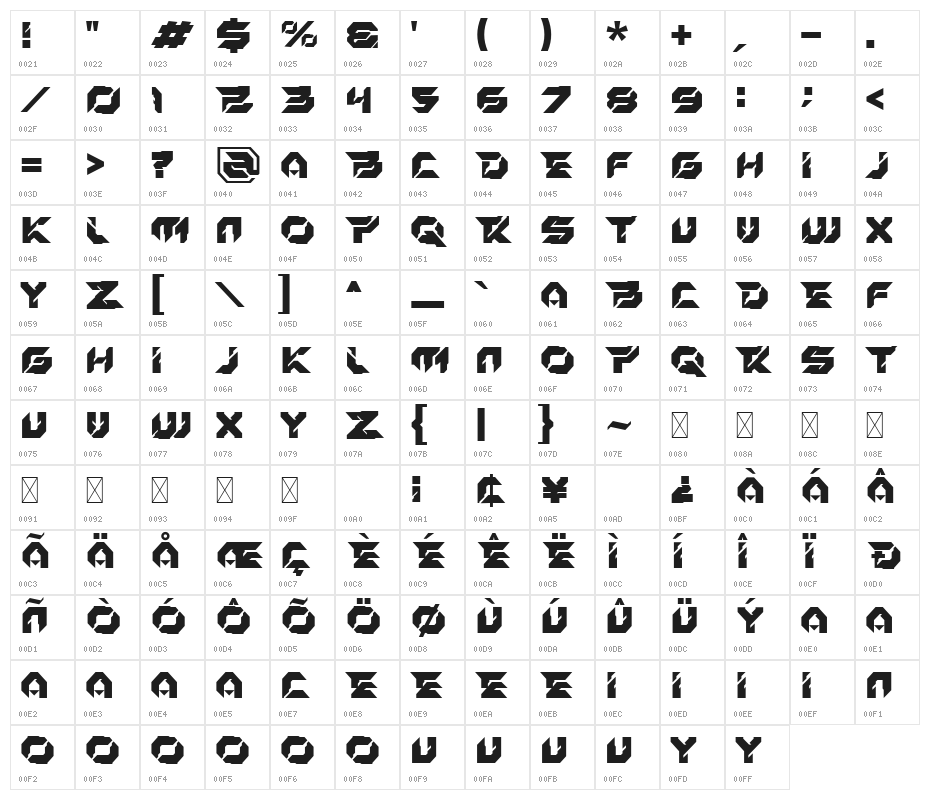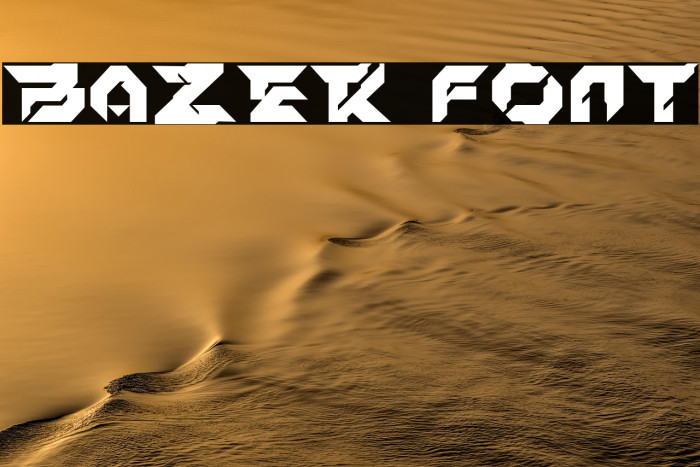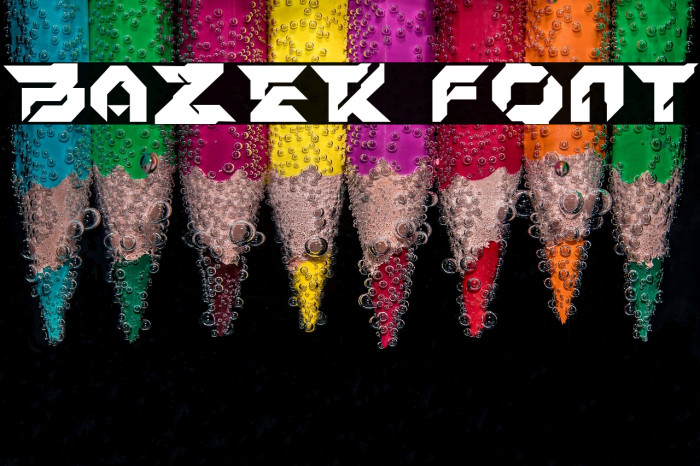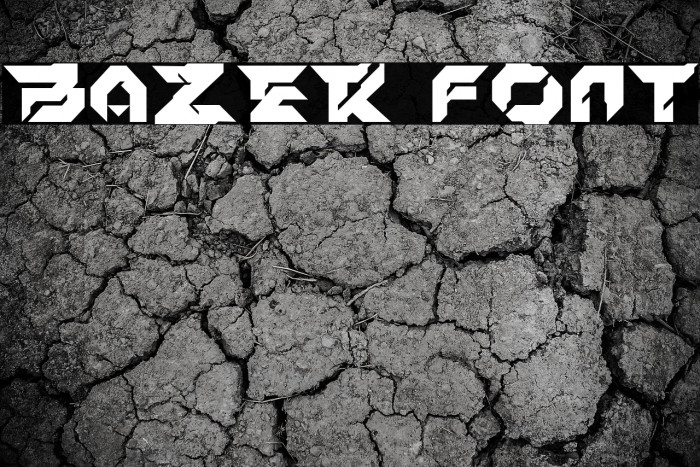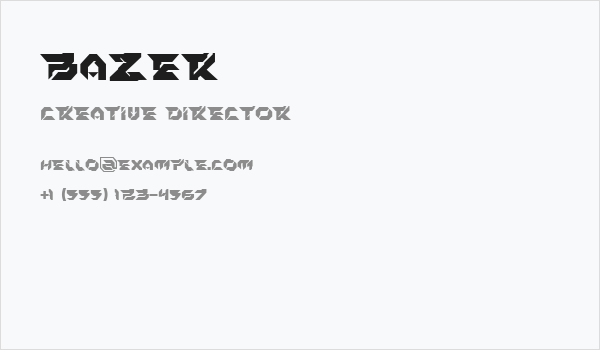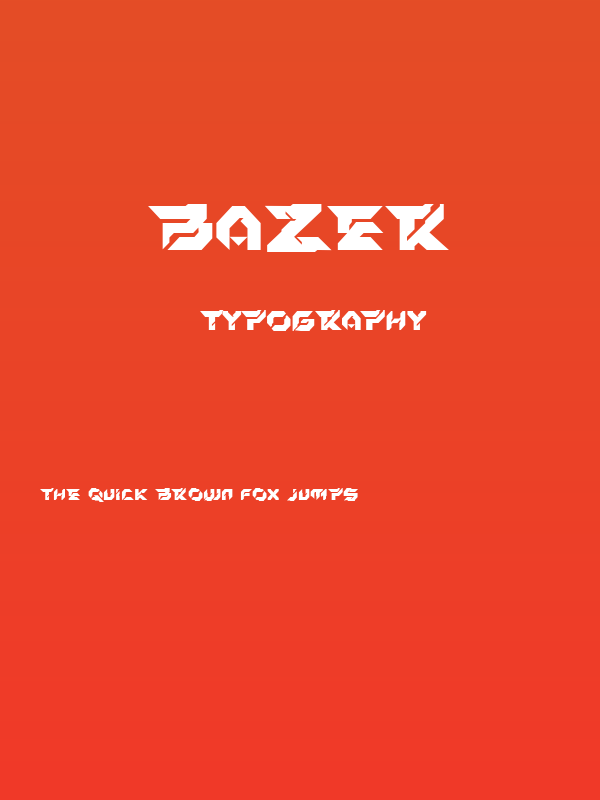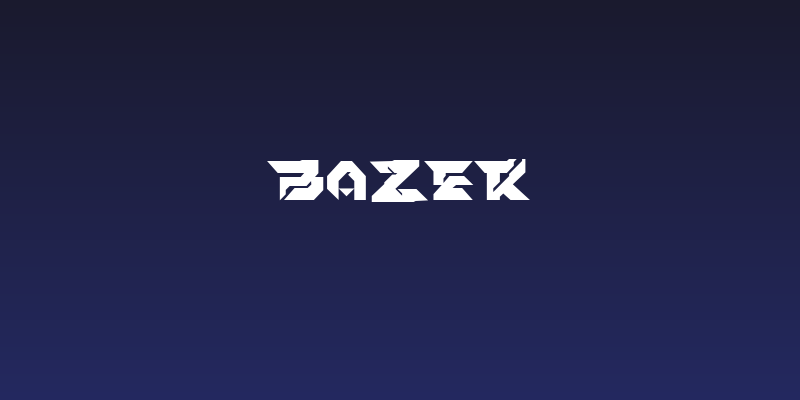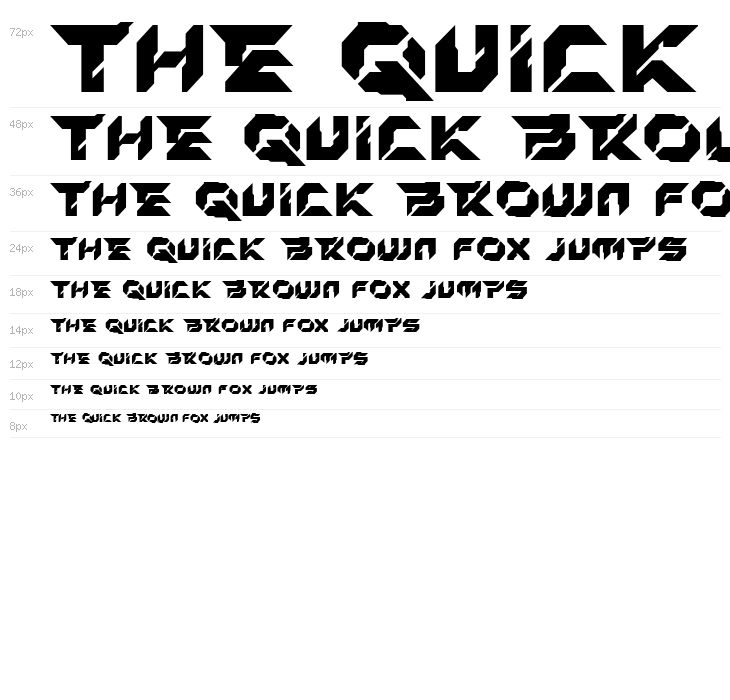
Bazer Font
Bazer Description
This font features a bold, geometric design with sharp angles and a futuristic aesthetic. The characters are constructed with a blocky, stencil-like appearance, giving them a strong and impactful presence. The uppercase and lowercase letters share a consistent style, emphasizing uniformity and cohesion. The numbers and special characters maintain the same bold and angular design, ensuring a seamless integration across all text elements. This font is ideal for projects that require a modern and edgy look, such as technology branding, video game titles, or sci-fi themed designs.
| Proposed Projects | Ideal for technology branding, video game titles, and sci-fi themed designs. |